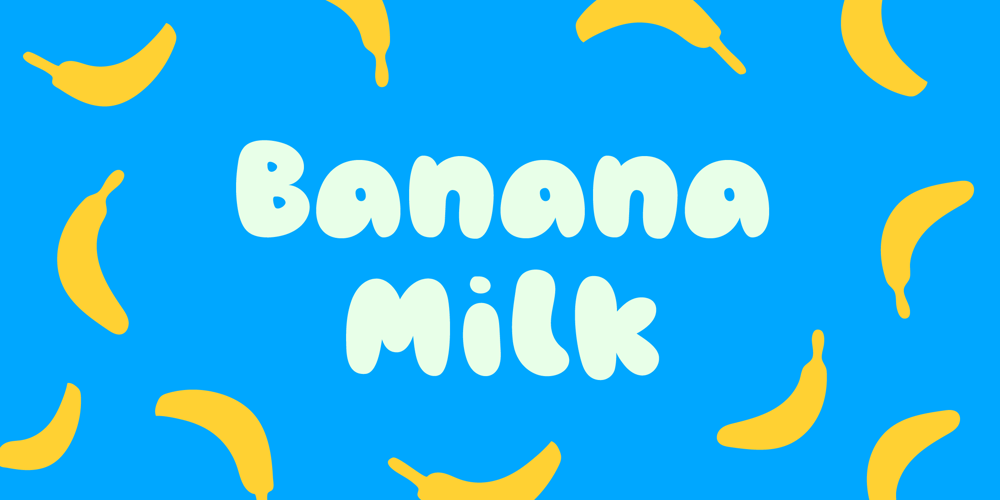
Banana Milk Font Family was designed by Adam Greasley and published by wearecolt. Banana Milk contains 3 styles and family package options. Inspired by coffee shop chalkboards, Banana Milk is a bubbly font with a hand-drawn feel. A fun display font for logos, headings, books, posters and other cool stuff.